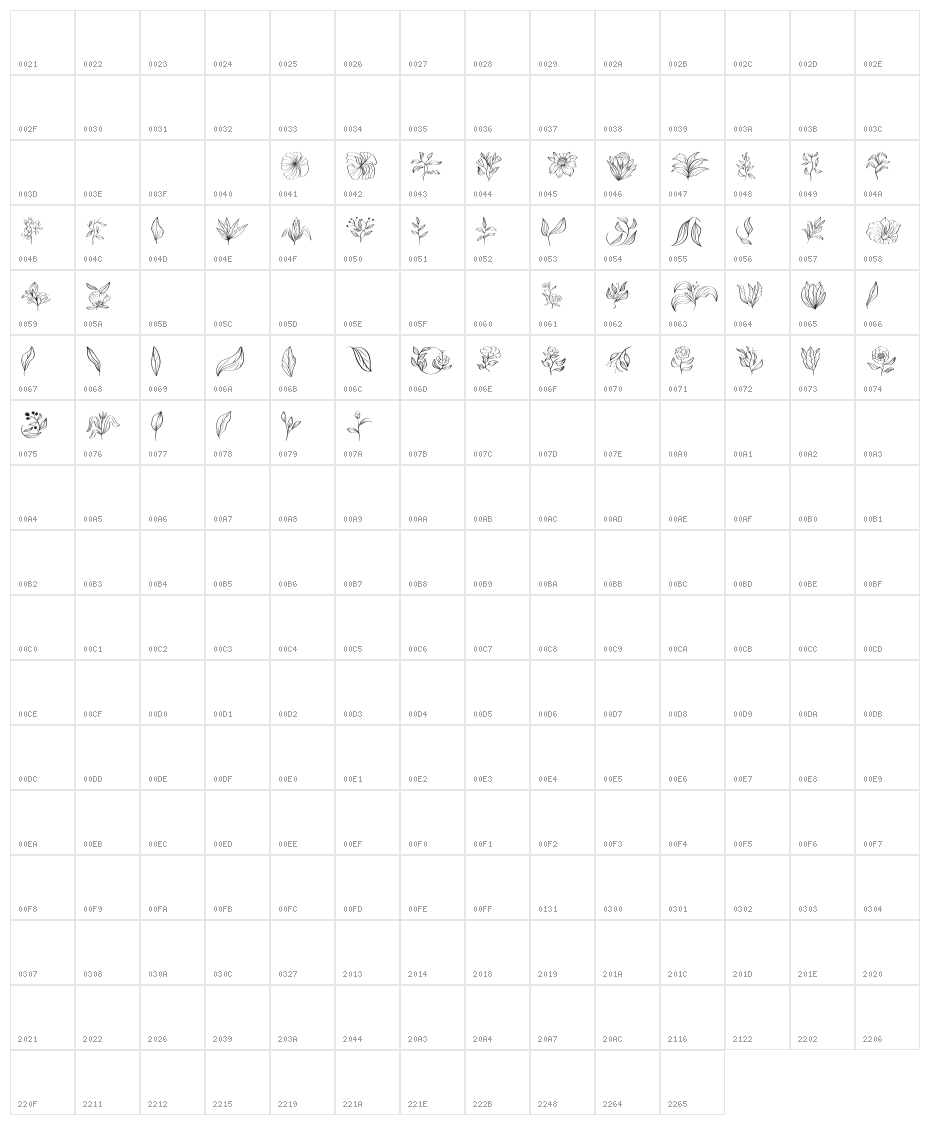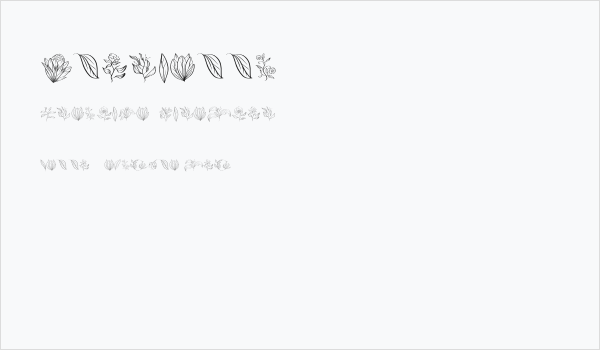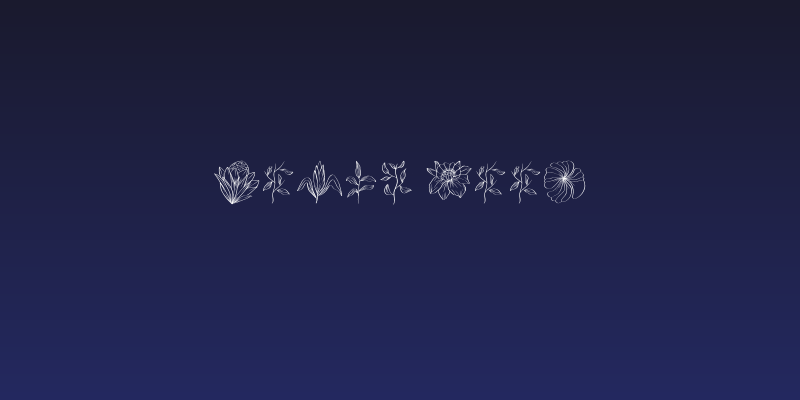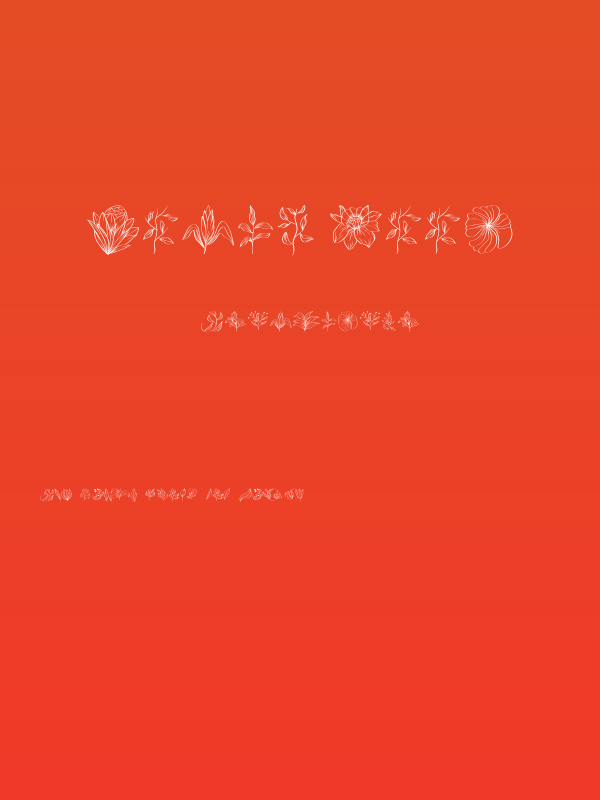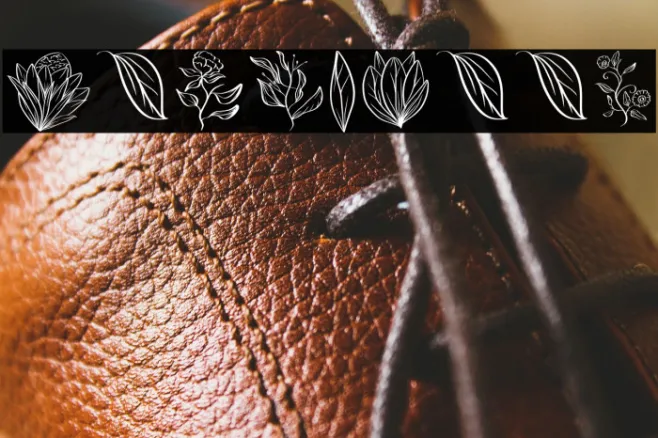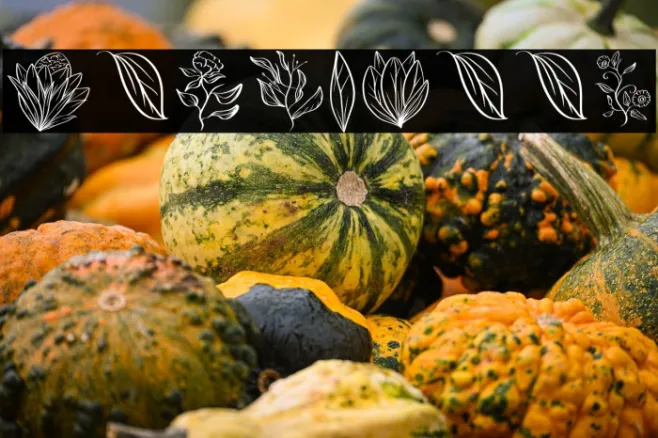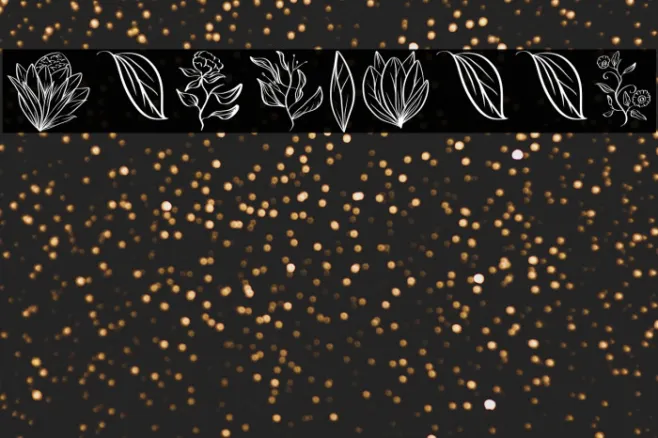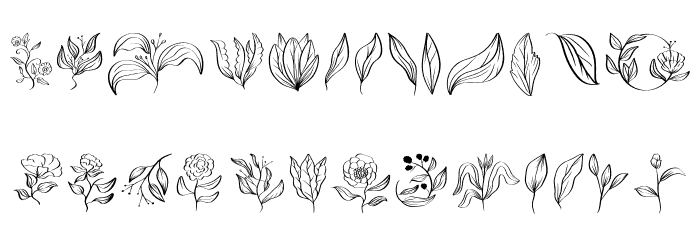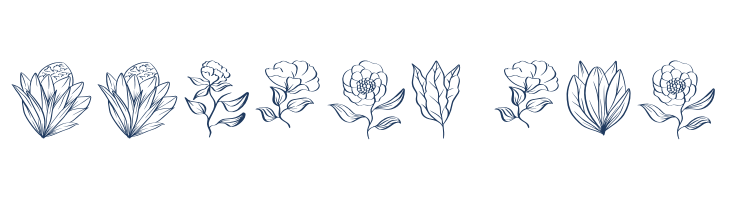
Floriella Font
Floriella Description
A decorative collection of hand-drawn floral and botanical illustrations, featuring a variety of flowers, leaves, and stems with delicate, fine lines and organic shapes.
| Overall Style | Decorative, Hand-drawn, Botanical |
| Use Case | Decorative elements, Illustrations, Accents |
| Proposed Projects | Wedding invitations, greeting cards, branding, packaging, social media graphics, decorative borders. |